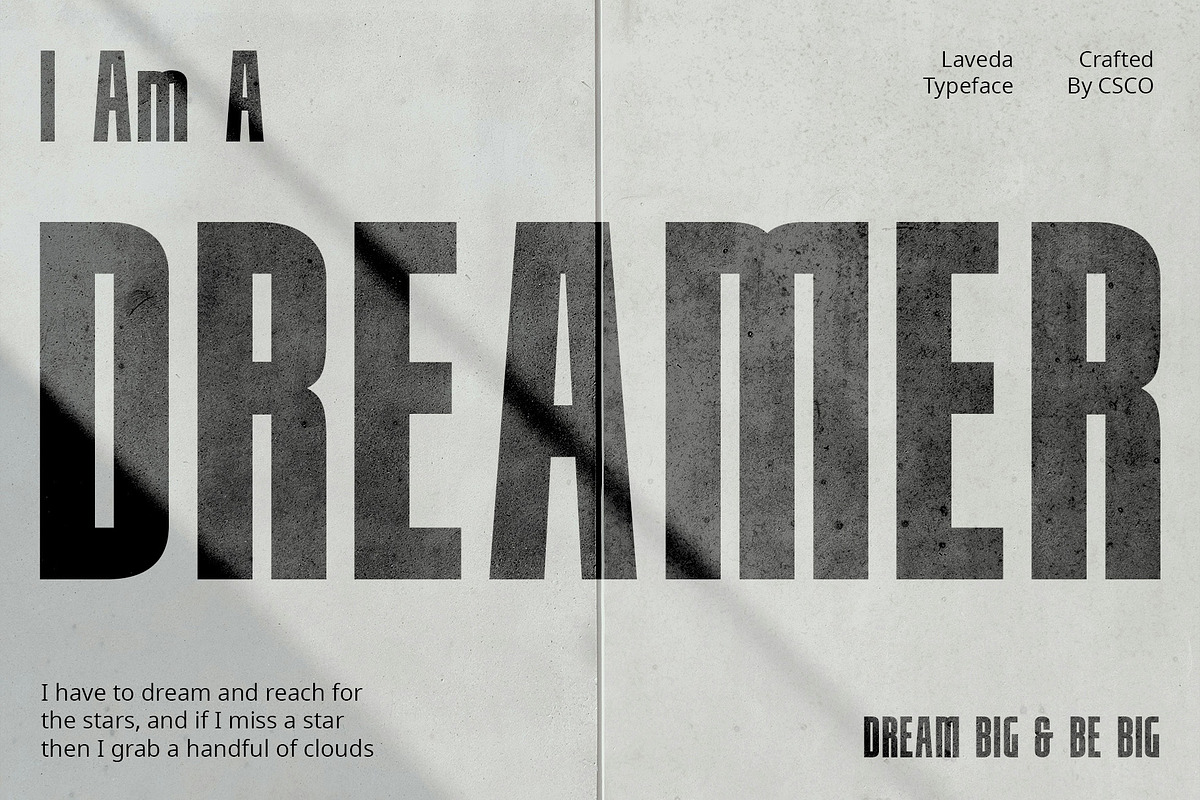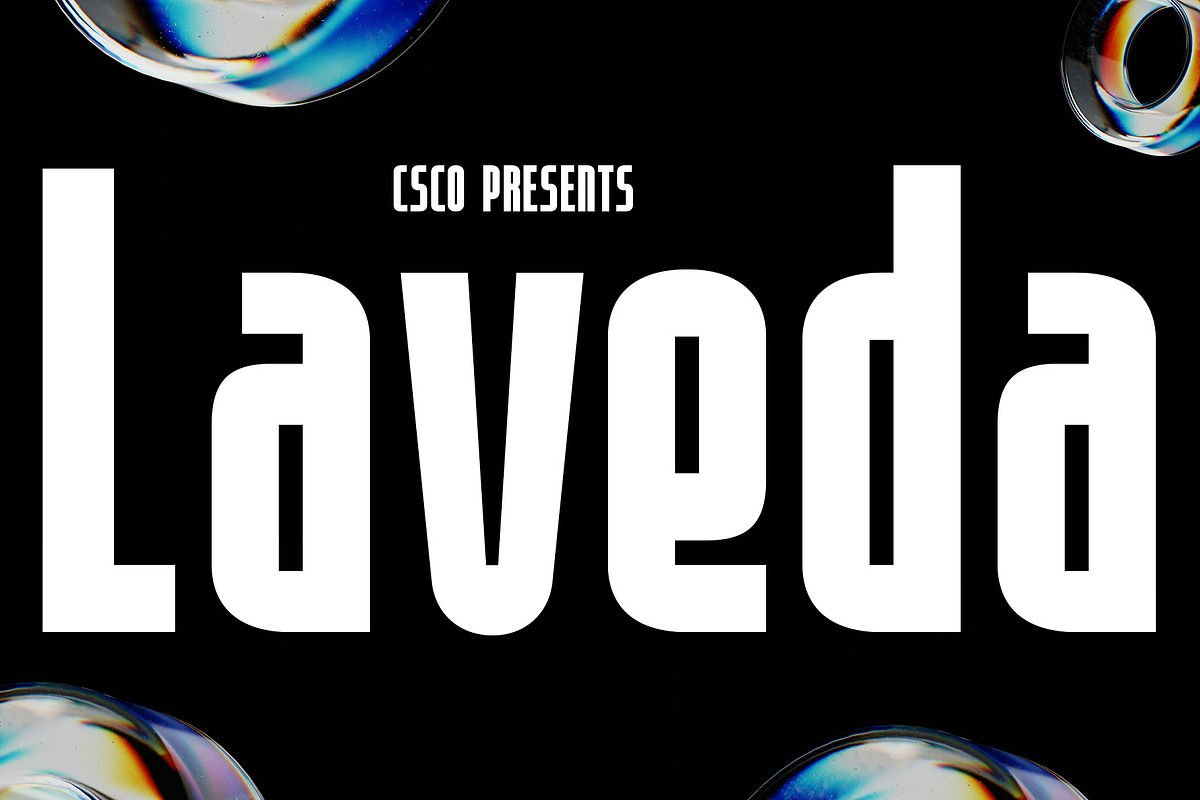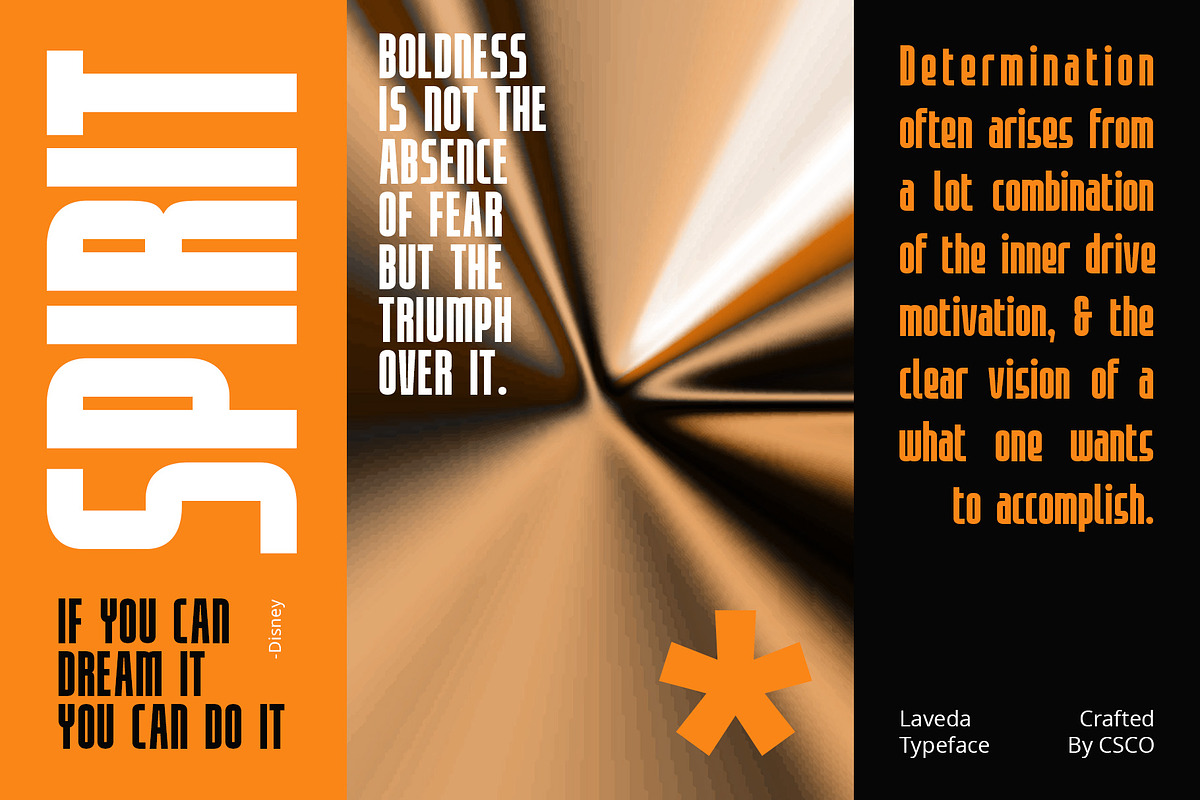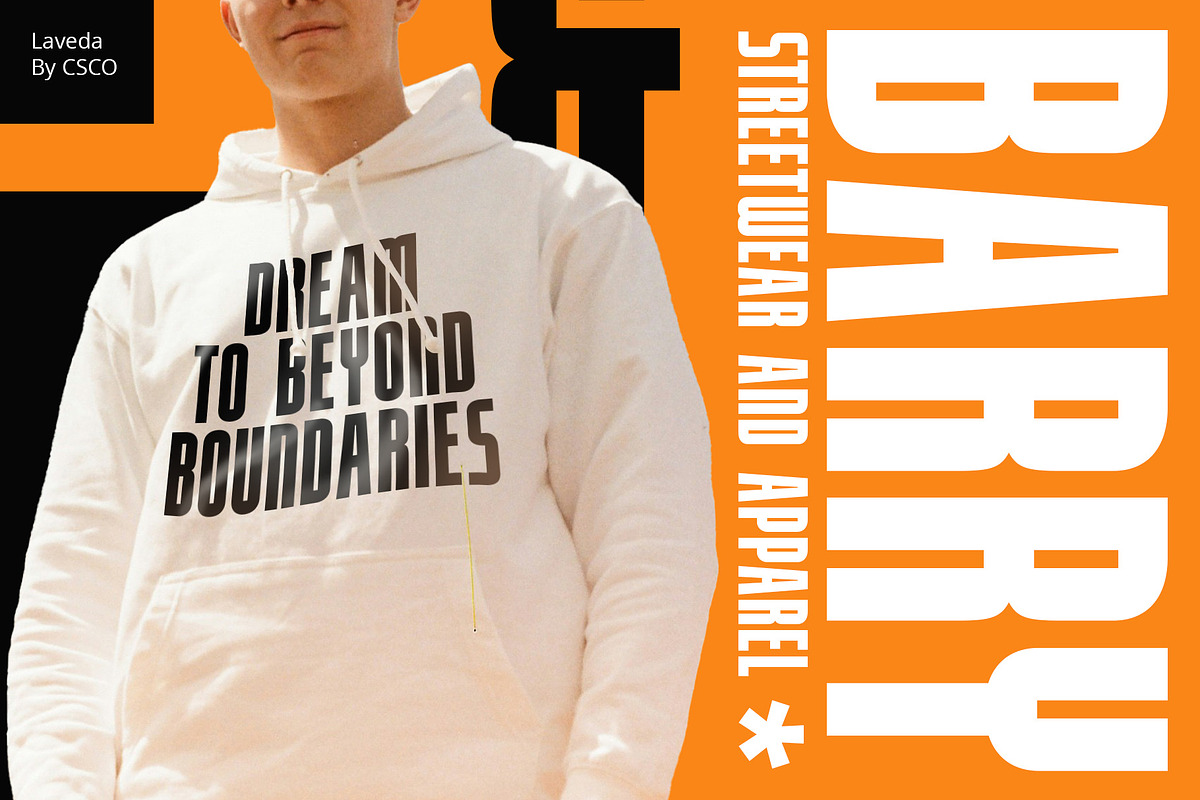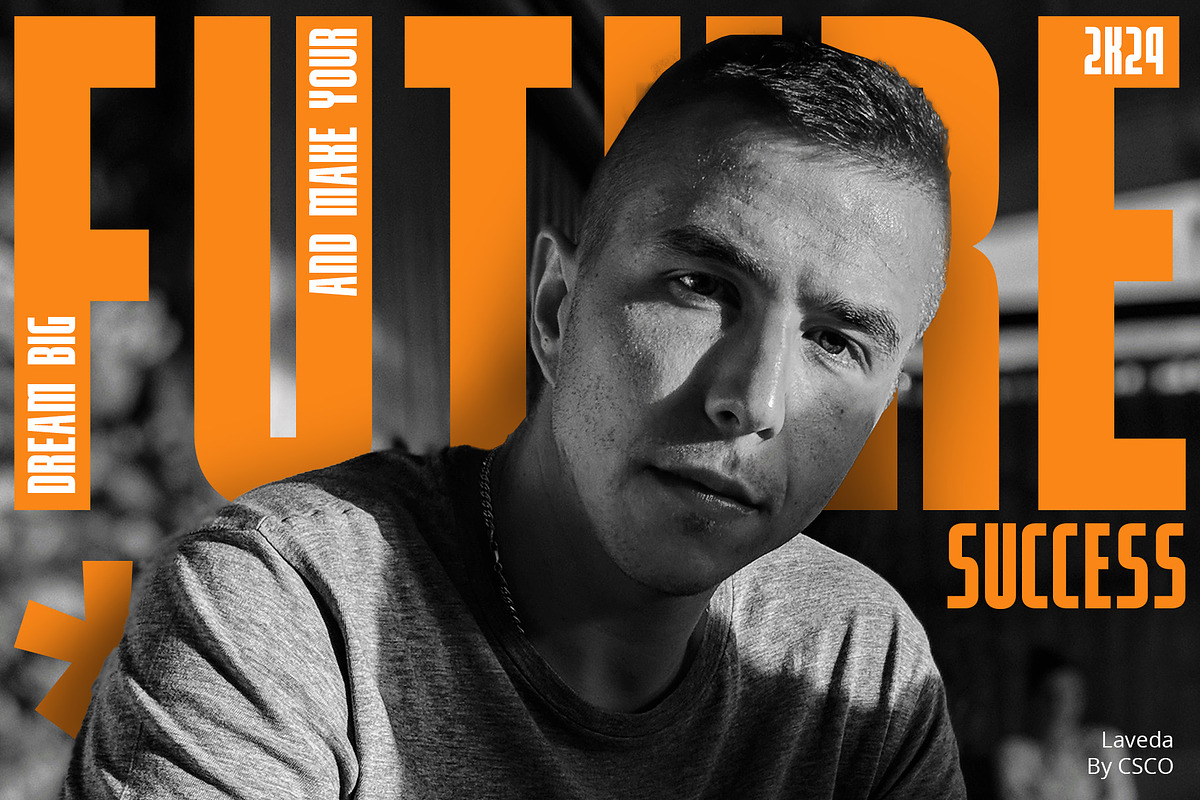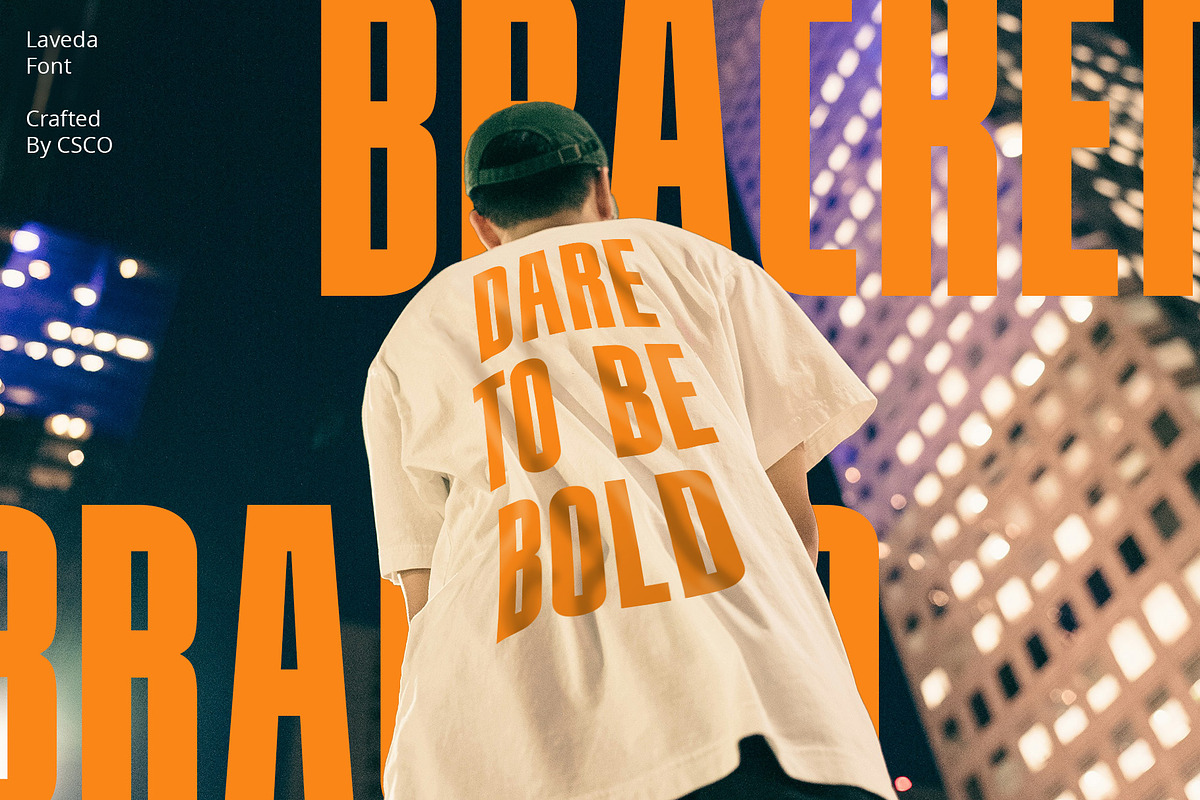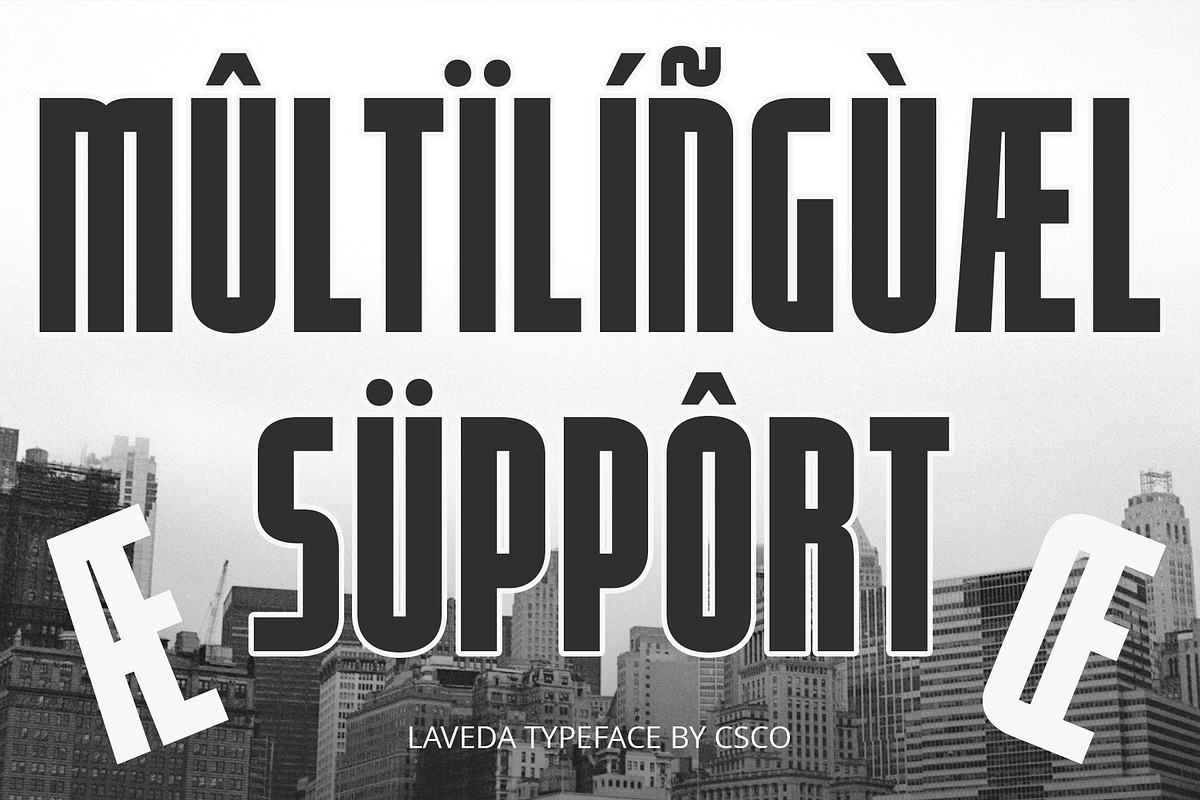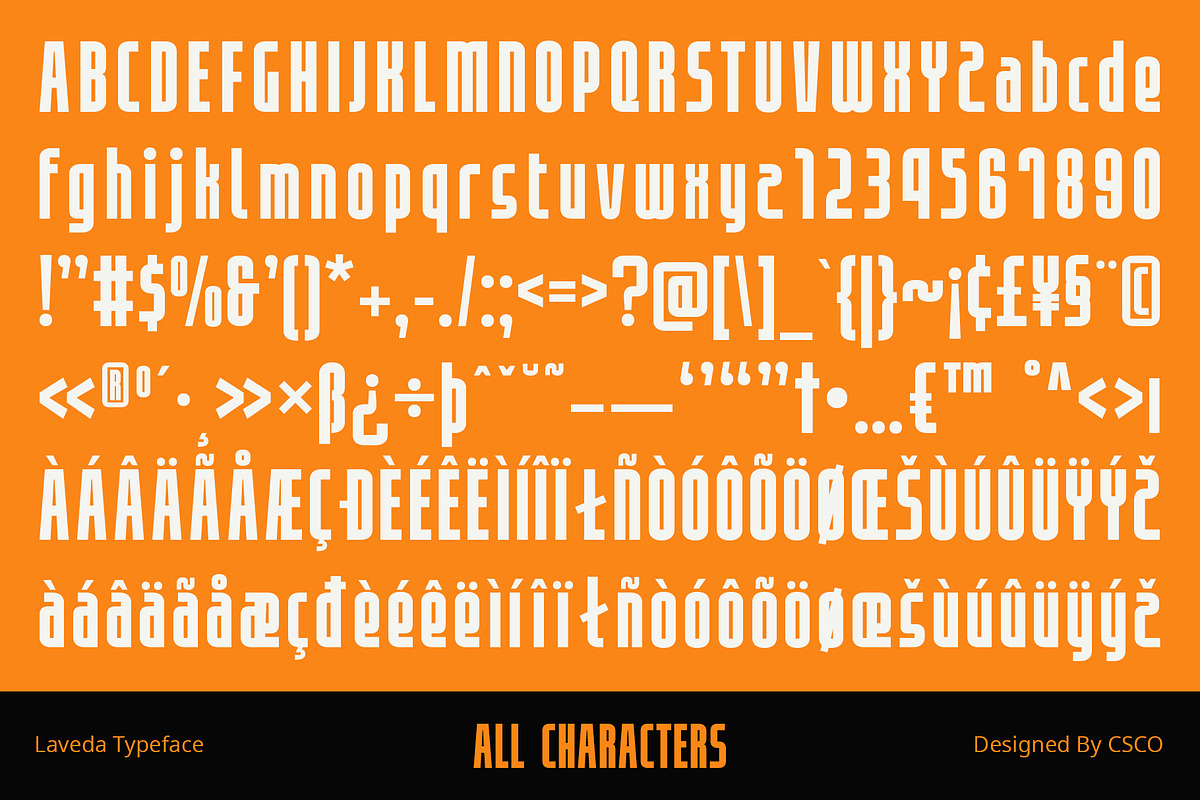
Laveda – Bold Sans Serif
Laveda – Bold Sans Serif: Making a Statement in Professional Settings
Bold Sans Serif for Professional Use
Laveda Font is a bold sans-serif typeface designed to make a statement in the professional world. Its boldness and simplicity ensure that your message is clear and impactful, making it ideal for corporate branding, presentations, and other professional applications.
Versatile and Reliable
Despite its bold appearance, Laveda Font is versatile and reliable. Whether used for headlines, logos, or body text, its clean lines and balanced proportions make it a reliable choice for a wide range of design needs.
Perfect for the Professional World
Laveda Font is perfect for professional settings where clarity and professionalism are paramount. Its bold design ensures that your message is both bold and authoritative, making it ideal for corporate reports, business cards, and other professional applications.
Make Your Message Stand Out
Elevate your designs with Laveda Font, where boldness meets professionalism. Its clean lines and bold appearance ensure that your message stands out with style and confidence in any professional setting.